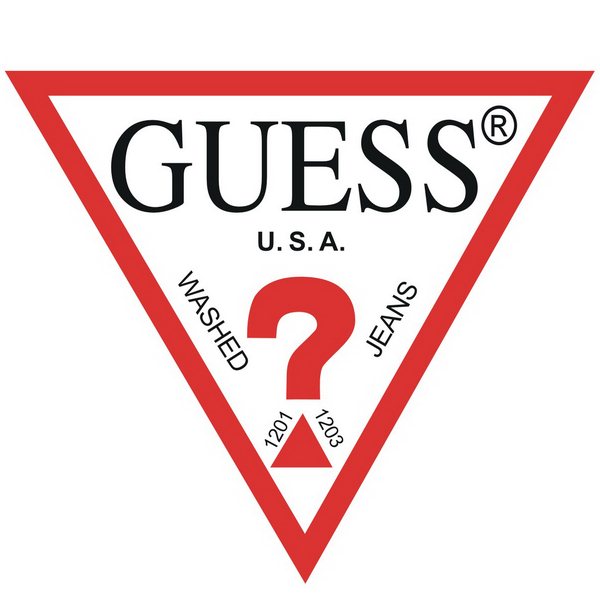
Guess Font
ApparelGUESS is a fashion brand founded in 1981 by the Marciano brothers. The brand is known for its trendy and stylish clothing, shoes, and accessories for men, women, and children. GUESS is particularly known for its iconic logo, which features a triangle with a question mark and the logotype inside.
The logotype lettering is set in Times Roman. Linotype's Times Roman and Monotype's Times New Roman are both derived from the same master fonts, but their styles differ slightly. The Guess logotype, for example, has slanted serifs on the letter S instead of vertical serifs of Times New Roman. Times Roman is a widely used typeface and it is supplied with and is installed by default in Apple Mac OS X. You can view more details about the font here.